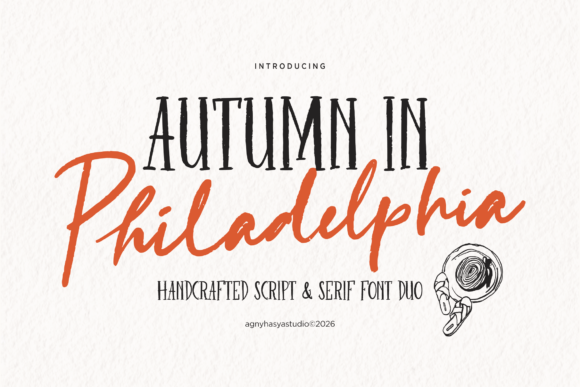
When Design Meets Nostalgia: Introducing Autumn in Philadelphia Font
As a designer, there’s nothing quite like the thrill of bringing a project to life. It’s that moment when your computer screen transforms into a canvas of creativity, and you feel like you’re crafting something truly special. For me, that moment often comes when I’m working on a project that requires a touch of warmth and personality. That’s exactly where Autumn in Philadelphia Font comes in – a charming handcrafted font duo that brings a soulful, artisan character to every design.
Autumn in Philadelphia Font is a beautiful blend of an organic handwritten script and a rustic vintage serif, designed to evoke feelings of nostalgia and coziness. Whether you’re working on a café branding project, food packaging, or wedding stationery, this font duo adds a timeless and authentic touch that’s sure to leave a lasting impression. As a designer, you know how valuable it is to have a versatile font that can elevate your designs and make them feel truly memorable.
Autumn in Philadelphia Font Key Features
- Font Family: Autumn in Philadelphia
- Unique Characteristics: Features a unique blend of modern and vintage elements, with a warm and inviting aesthetic
- X-Height: Offers a high x-height, making it suitable for body text and long passages
- Language Support: Supports a wide range of languages, including Latin, Greek, and Cyrillic scripts
Autumn in Philadelphia Font Review
At first glance, Autumn in Philadelphia Font is a charming and unique script font that captures the essence of fall in Philadelphia. I appreciate how it effectively conveys a sense of nostalgia and warmth, making it perfect for projects that require a cozy and inviting feel. ✨
The font’s flowing connections between letters and its subtle flourishes add to its character, making it stand out from more traditional script fonts. ✨ I also appreciate the variety of styles and weights available, which provides designers with ample options for customization.
However, there are a few limitations to consider. The font may not be suitable for large blocks of text, as the connections between letters can make it difficult to read at a distance. Additionally, some of the characters may not be perfect for digital use, particularly in small sizes. ⚠️
Overall, I think Autumn in Philadelphia Font is a great choice for designers looking to add a touch of autumnal charm to their projects. While it may not be perfect for every use case, it’s a unique and versatile font that can help create a warm and inviting atmosphere.
- Unique and charming design
- Perfect for projects requiring a cozy and inviting feel
- Variety of styles and weights available
- Not suitable for large blocks of text
- May not be perfect for digital use in small sizes
Autumn in Philadelphia Font: A Practical Application Guide
Tips for Getting the Most Out of Autumn in Philadelphia Font
Use Autumn in Philadelphia Font to add a touch of elegance and sophistication to your designs. This font is perfect for creating invitations, posters, and other marketing materials.
Autumn in Philadelphia Font is ideal for:
- Event promotions and posters
Alternatives to “Autumn in Philadelphia Font”
Pacifico is a beautiful, elegant script font that is perfect for creating a warm and inviting atmosphere. It is ideal for use in wedding invitations, greeting cards, and other designs where a touch of sophistication is needed. Pacifico is similar to Autumn in Philadelphia in its cursive style, but has a more refined and polished look.
Carolyna Pro is a modern script font that is designed to evoke the feeling of classic calligraphy. It is perfect for use in designs where a sense of luxury and elegance is needed, such as in high-end fashion branding and advertising. Carolyna Pro has a similar feel to Autumn in Philadelphia, but has a more modern and sleek look.
Great Vibes is a beautiful, flowing script font that is perfect for use in designs where a sense of playfulness and creativity is needed. It is ideal for use in youth-focused branding and advertising, as well as in designs where a touch of whimsy is needed. Great Vibes has a similar feel to Autumn in Philadelphia, but has a more carefree and spontaneous look.